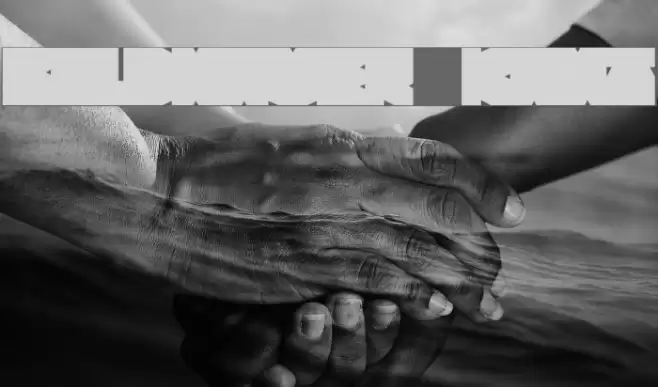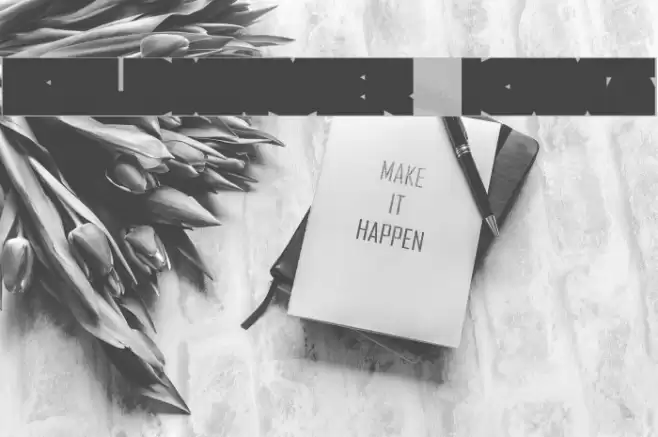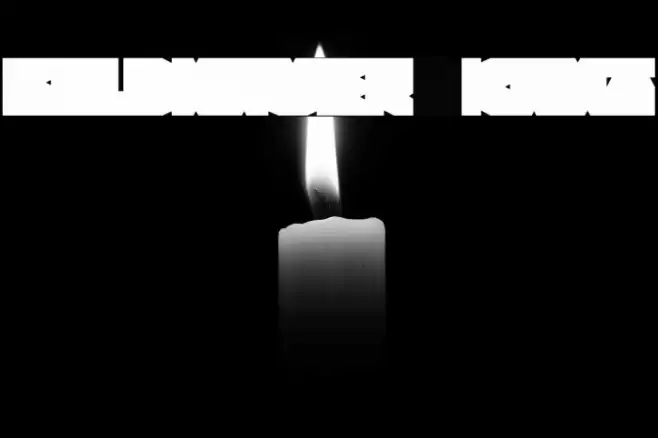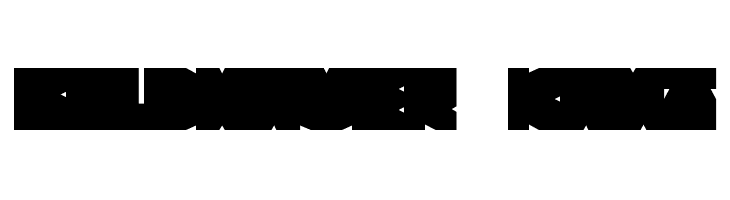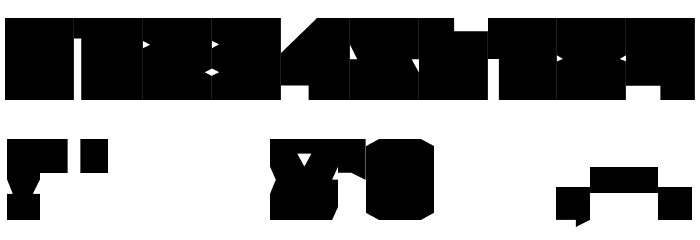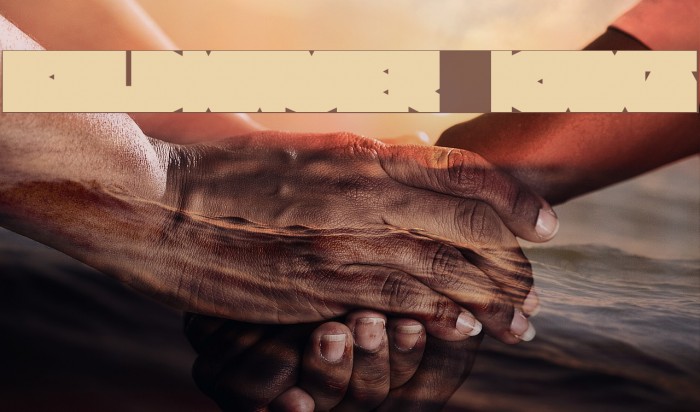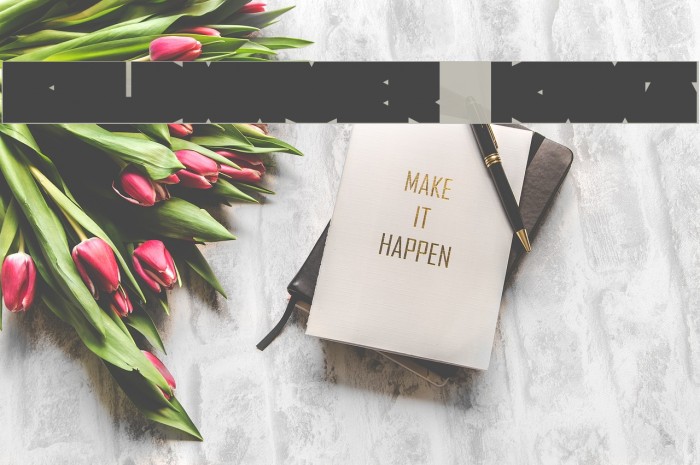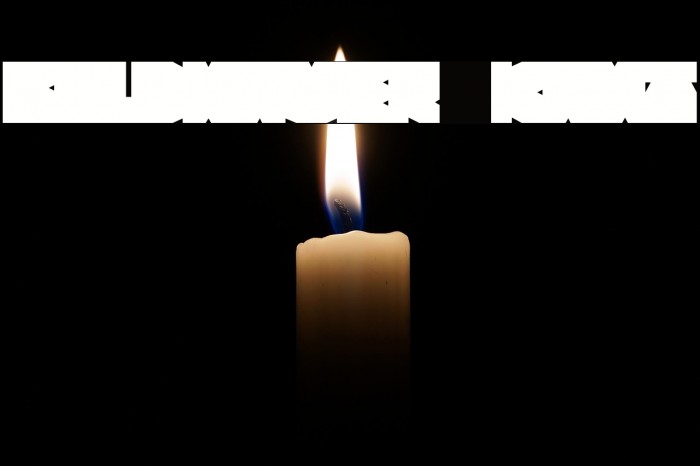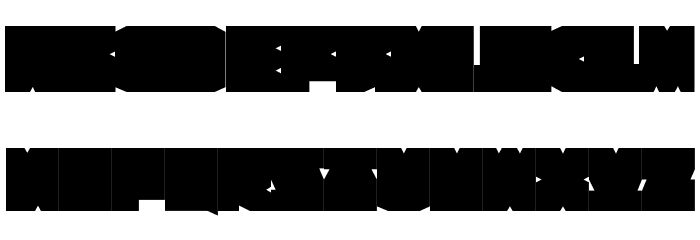
Bildhauer Kant Font
Bildhauer Kant Description
This font features a bold, geometric design with a strong emphasis on angular shapes and sharp edges. The characters are constructed with a blocky, almost industrial aesthetic, giving it a modern and assertive appearance. The uppercase and lowercase letters maintain a consistent weight and width, creating a uniform look across the typeface. The numbers and special characters follow the same design principles, ensuring cohesion throughout. The font's solid and robust structure makes it highly legible, even at smaller sizes, while its unique style adds a distinctive flair to any project.
A bold, geometric font with sharp edges and a modern, industrial aesthetic from Uncategorized fonts.